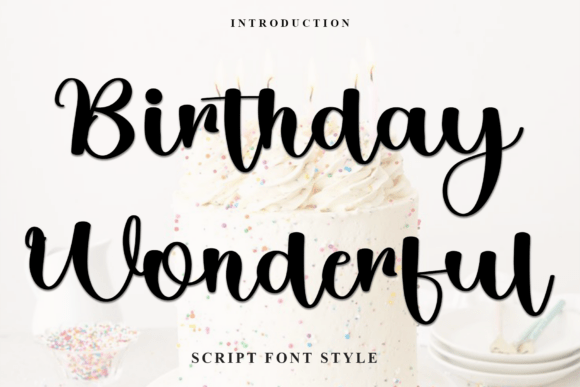
Adding a Dash of Joy to Your Designs
Have you ever been tasked with creating the perfect birthday invitation or greeting card, only to be stuck with a font that just doesn’t capture the festive spirit? We’ve all been there – searching for that one special font that screams ‘celebration’ and makes our designs pop.
Enter the Birthday Wonderful Font, a sweet and joyful script typeface that’s sure to put a smile on your face and a twinkle in your creative eye. With its smooth curves and flowing calligraphy style, this font is perfect for adding a personal, handwritten touch to your designs. Whether you’re a seasoned designer or a DIY enthusiast, the Birthday Wonderful Font is a valuable addition to your toolkit, offering elegance, playfulness, and ease of readability that’s sure to delight.
Birthday Wonderful Font Key Features
- Font Family: Birthday Wonderful Font is a unique, hand-drawn font designed specifically for celebratory occasions.
- Character Set: Includes a wide range of characters, including uppercase and lowercase letters, numbers, and special symbols.
- Unique Characteristics: Features a playful, cursive script with swashes and flourishes, perfect for adding a touch of whimsy to birthday invitations, cards, and other celebratory materials.
Birthday Wonderful Font Review
Overall, I’m impressed with the Birthday Wonderful Font. It’s perfect for creating eye-catching birthday invitations and party materials. ✨ Here are some of the things that I think work well:
- Unique design: The font has a fun, playful look that’s sure to grab attention.
- Customizable: The font comes in several styles and colors, making it easy to match your design aesthetic.
- Legible: Despite its playful appearance, the font is still easy to read, even at smaller sizes.
- ⚠️ Overuse: Because of its playful design, the font may be overused if not used thoughtfully. Be sure to pair it with complementary elements to avoid visual fatigue.
The Birthday Wonderful Font is ideal for:
- Celebrating birthdays and special occasions.
- Creating custom party invitations and decorations.
- Designing personalized gifts and cards.
Alternatives to Birthday Wonderful Font